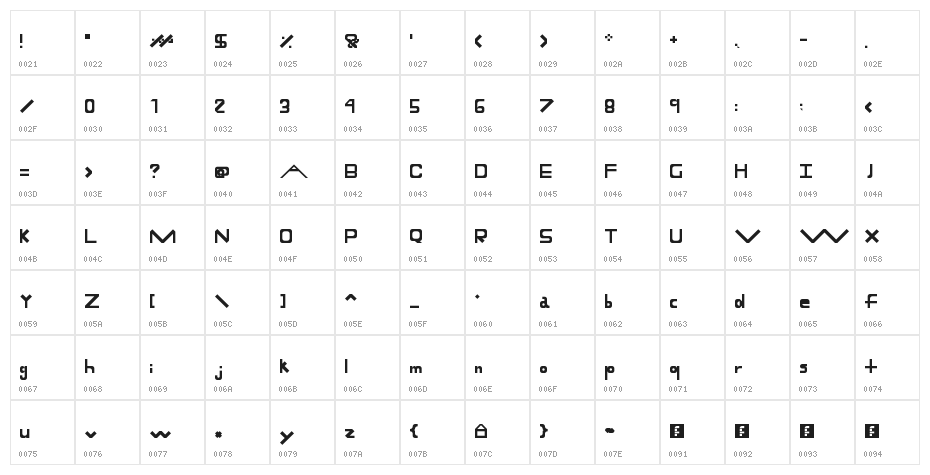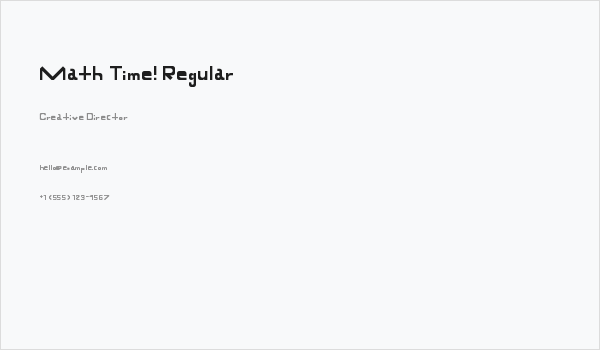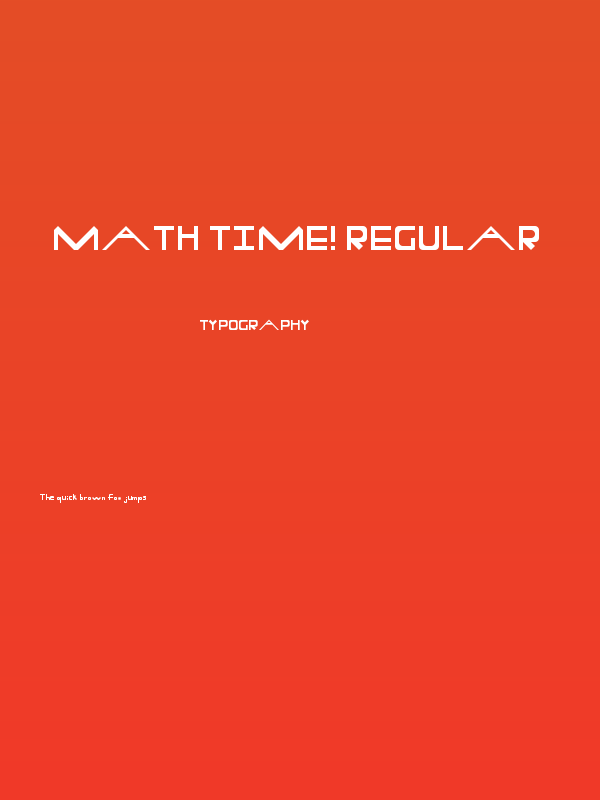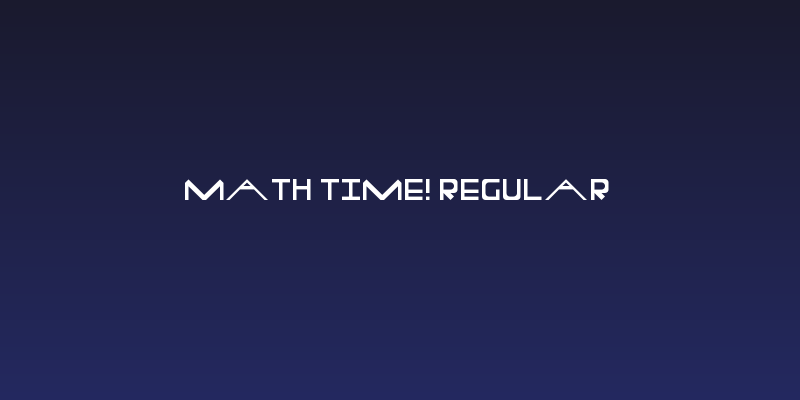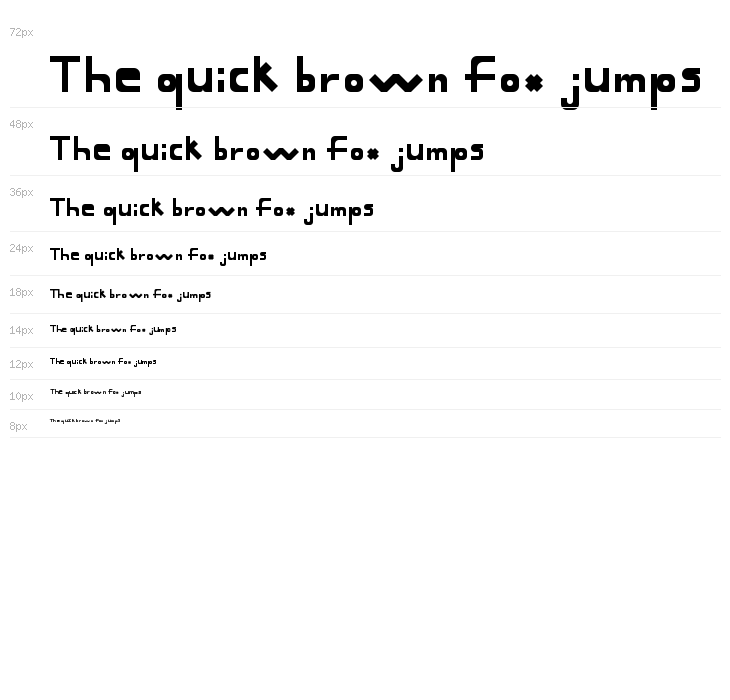
Math Time! Regular Font
Math Time! Regular Description
This font features a modern and geometric design with a distinct angular style. The uppercase letters are bold and structured, with sharp edges and a futuristic feel. The lowercase letters maintain the geometric theme, offering a unique take on traditional letterforms. Numbers and special characters are consistent with the angular and bold aesthetic, making them stand out. The overall appearance is clean and precise, suitable for projects that require a contemporary and tech-inspired look.
| Proposed Projects | Ideal for tech branding, futuristic posters, digital interfaces, and modern art projects. |